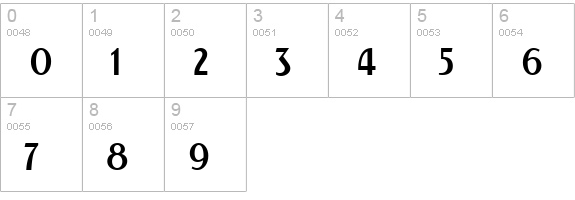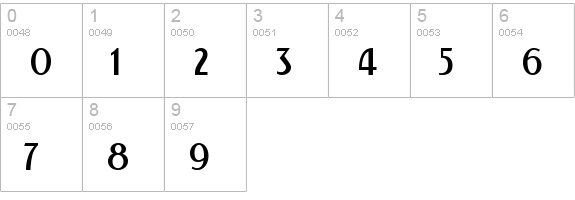
SaintLouisBold Font Details
SaintLouisBold is a striking and charismatic font that exudes confidence and boldness. With its strong and sturdy letterforms, this font commands attention and makes a powerful statement. Whether used for headlines, titles, or logos, SaintLouisBold adds a touch of sophistication and elegance to any design. This font is not only visually captivating but also incredibly versatile. Its clean lines and well-defined characters make it easy to read and legible at any size, ensuring a seamless reading experience for your audience. From posters to banners, websites to advertisements, SaintLouisBold effortlessly elevates the visual impact of your message. One of the best things about SaintLouisBold is that it is free. Yes, you read that right! This stunning font is freely available to download at FontsMarket.com. Now, you can enhance your designs without breaking the bank. With just a few clicks, you can access this incredible font and take your creative projects to new heights. So why wait? Embrace the boldness and sophistication of SaintLouisBold in your designs. Download it for free today at FontsMarket.com and unlock a world of possibilities for your next project.